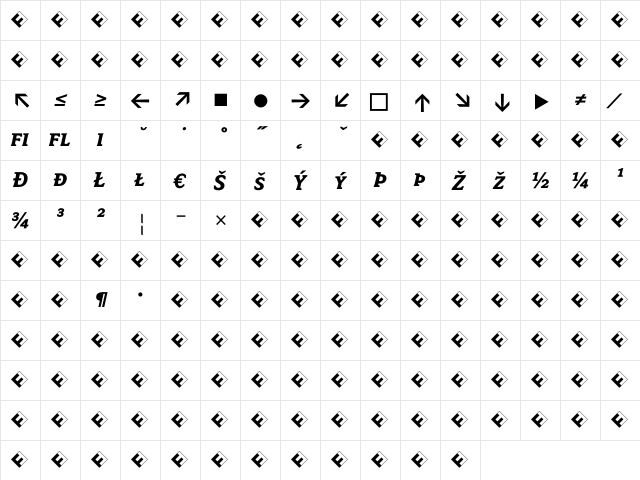
Avance Bold Exp SC Italic
Design Context for Avance Typeface
Avance is a composed and adaptable typeface that performs quietly and consistently across a wide range of design contexts. Its italic angle brings a sense of urgency and motion to the letterforms. The heavy weight commands attention and anchors typographic hierarchies.
Pro Tip: Try Avance for annotation and caption copy alongside an upright companion — the contrast in angle creates a dynamic but ordered typographic system.